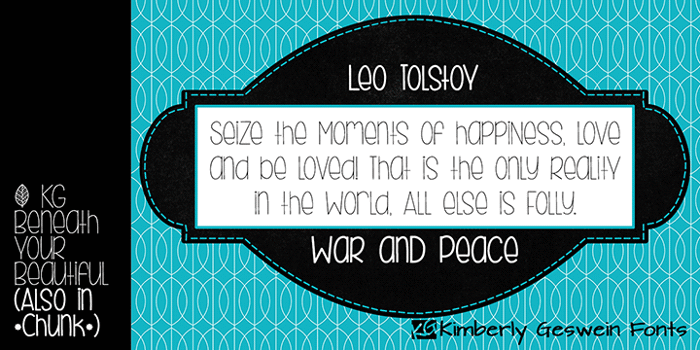
KG Beneath Your Beautiful Font
Chunk Regular Style
12 years agoamazing and wonderful. <3
12 years agoThe bar key | has a leaf, just FYI 😄
12 years agoSuch a cute font!!!
12 years agoCute!!!!!!:D!!
12 years agoMy current favourite! 😄